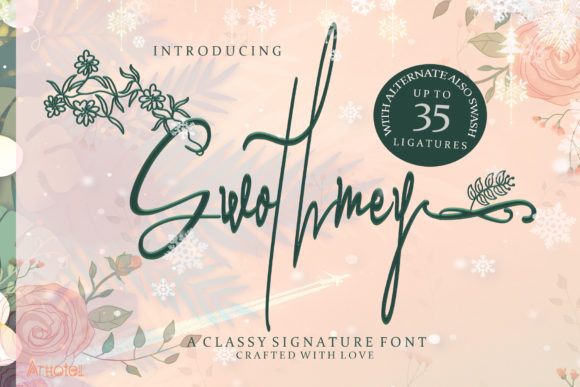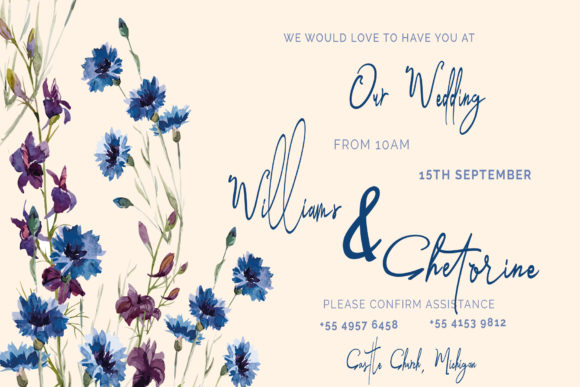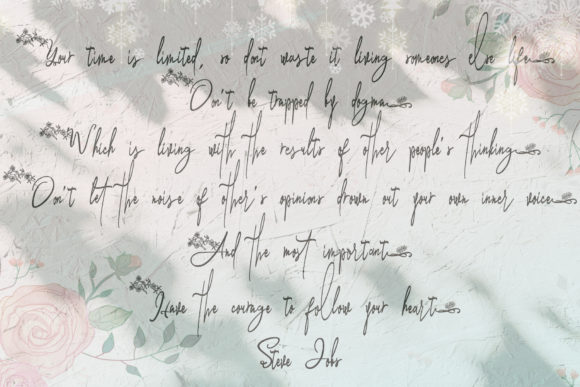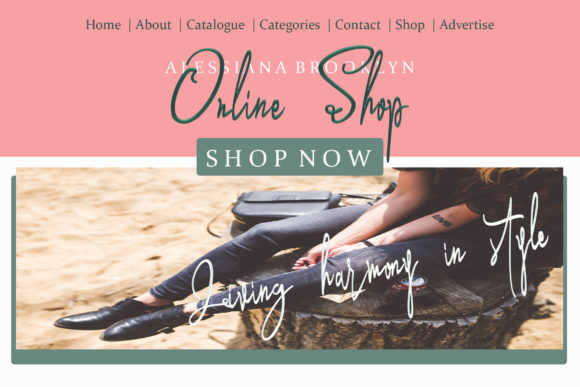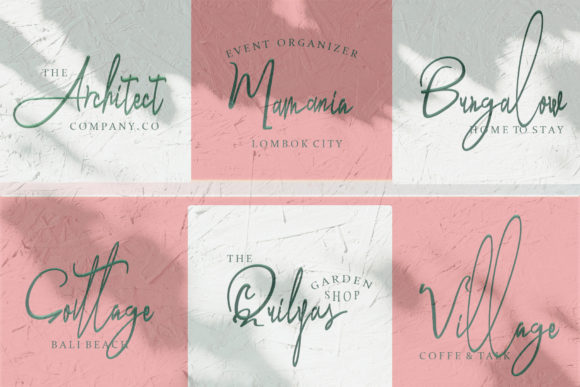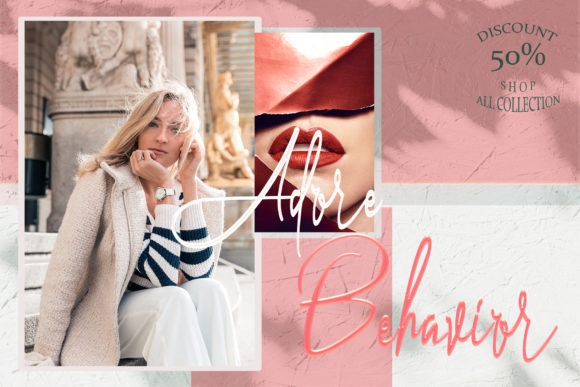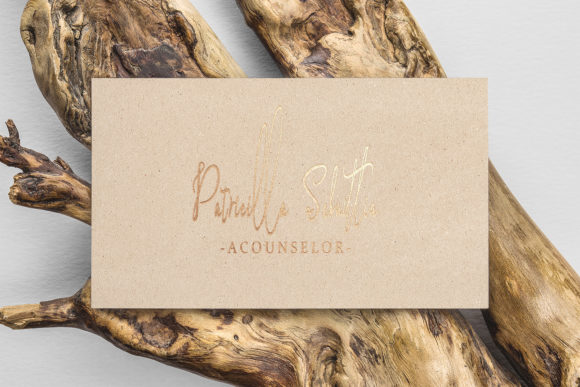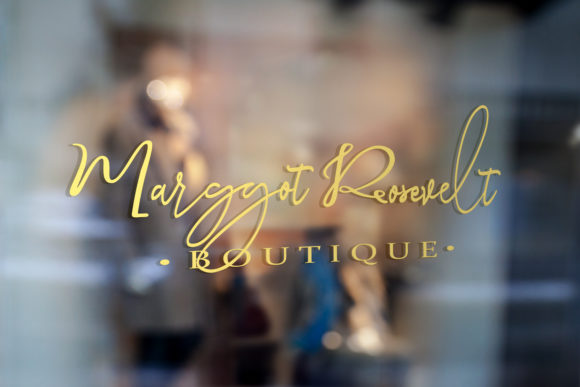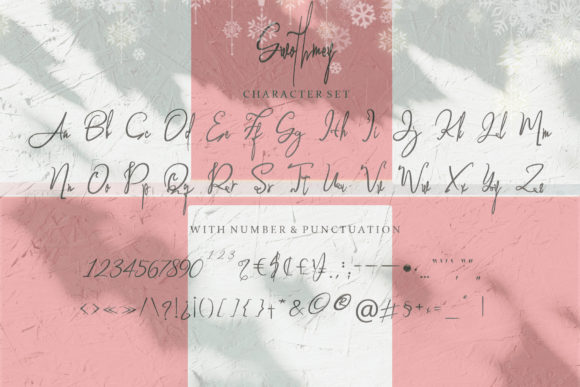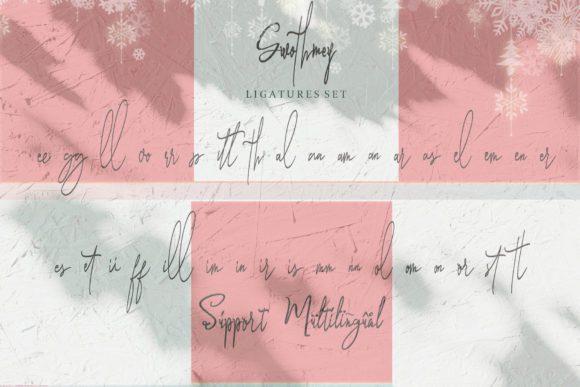
HomeScript FontsGwothmey Font Script Fonts Gwothmey Font FacebookXPinterestWhatsApp Gwothmey Font Poster 2 Gwothmey Font Poster 3 Gwothmey Font Poster 4 Gwothmey Font Poster 5 Gwothmey Font Poster 6 Gwothmey Font Poster 7 Gwothmey Font Poster 8 Gwothmey Font Poster 9 Gwothmey Font Poster 10 Gwothmey Font Poster 11 About Gwothmey Font Gwothmey is a stunning script with great legibility. It will make any design stand out. DOWNLOAD ON CREATIVE FABRICAThis font is sold and delivered by Creative Fabrica. Font Canyon may earn a commission if you buy through this link. People also explored Oshirist Script Font Cleanthes Font Pisang Molens Font Belastine Font Autined Font Word Signature Font Nacho Font Velvet Lousitone Duo Font Rikos 298 0 TagsGwothmey Font Previous articleMisellia and Friend Duo FontNext articleBig Bang! Font LEAVE A REPLY Cancel reply Comment: Please enter your comment! Name:* Please enter your name here Email:* You have entered an incorrect email address! Please enter your email address here Website: Save my name, email, and website in this browser for the next time I comment. Personal Use Free Sheiloria Personal Use Free Read more about this font Charlie Personal Use Free Read more about this font Rumaniaya Personal Use Free Read more about this font Goldsaber Personal Use Free Read more about this font BLOG To increase your work productivity, choose the most readable fonts. In today's fast-paced work environment, where digital communication and information consumption are integral to our daily routines, the choice of fonts can significantly impact... The 10 Best Handwriting Fonts to Add Personality to Your Designs Free vs Paid Fonts: Why Investing in Premium Fonts Is Worth It Best Fonts for YouTube Videos: Make Your Thumbnails Stand Out